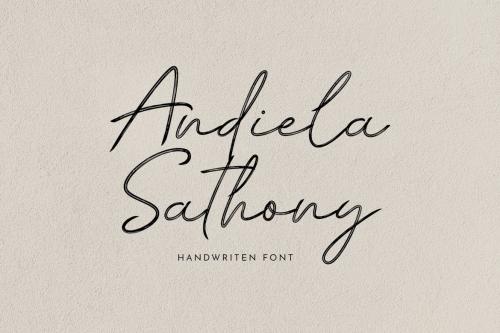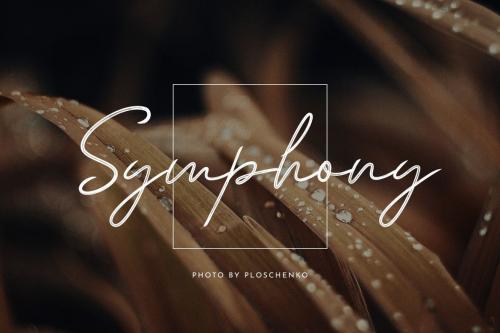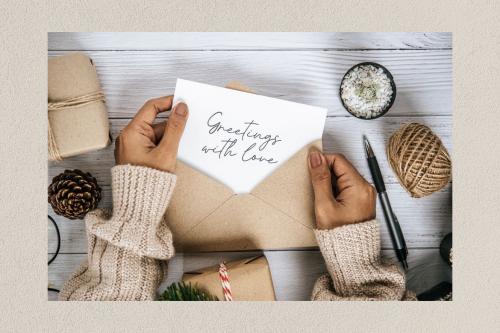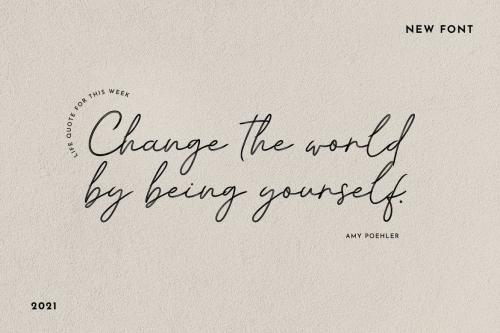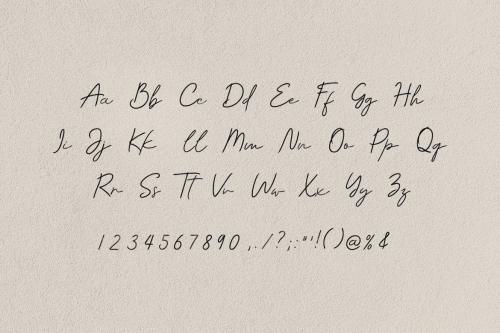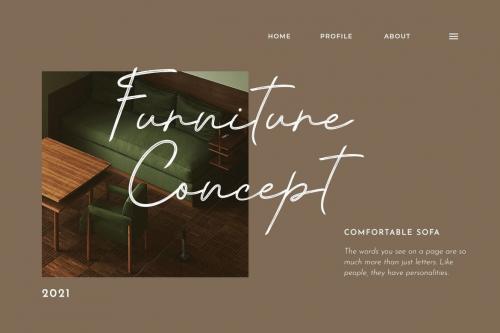
安迪拉萨托尼签名字体
Andiela Sathony Signature Font
Introducing of our new product the name is **Andiela Sathony Handwritten Font**. This collection of scripts is perfect for personal branding. It was made with the intention to be used for your personal branding. But, this works well for many applications. Everything from personal branding, logos, name tag, handwritten quotes, product packaging, merchandise, social media & greeting cards. photography signature, advertising could benefit from this collection of these bold signature fonts.